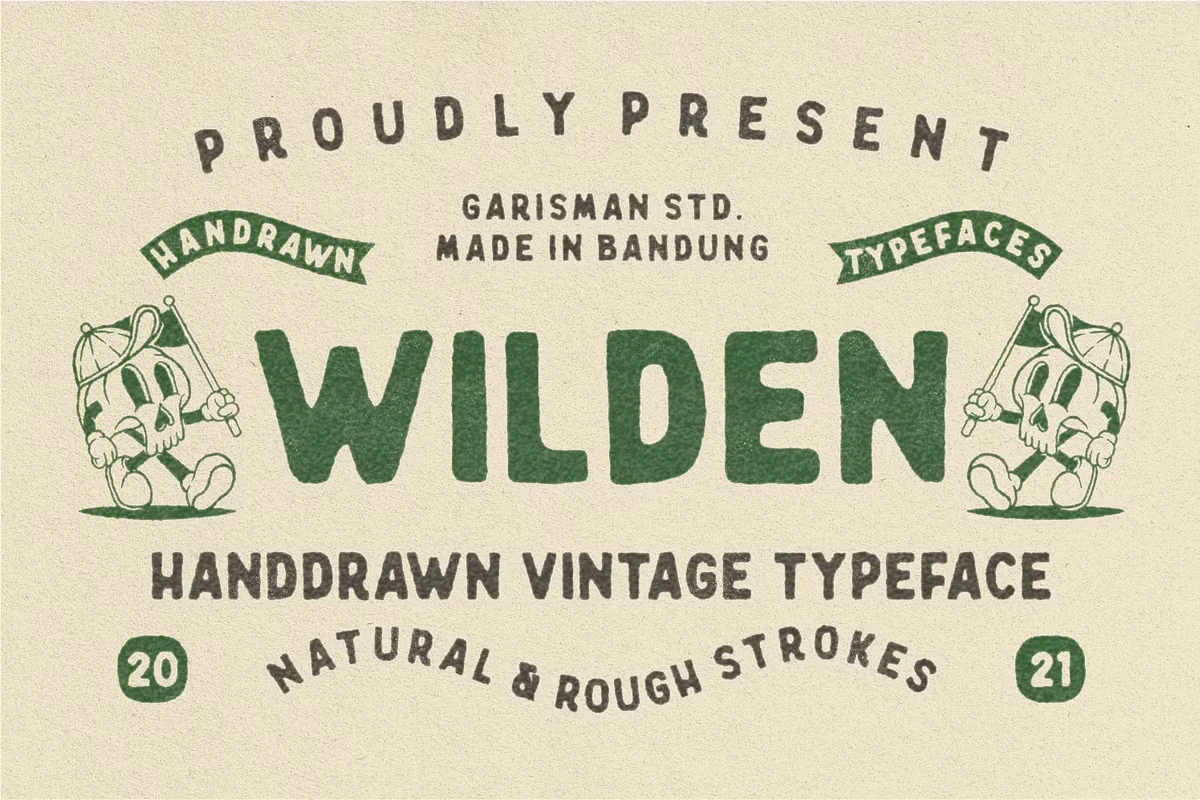
Wilden Font vintage font is a captivating typeface inspired by vintage and poster-style designs, evoking a sense of nostalgia, old-school charm, and timeless authenticity. Meticulously crafted to infuse your projects with a retro spark, this font combines vintage appeal with modern functionality. Its PUA encoding ensures seamless usability for designers of all skill levels, making it an accessible and versatile choice for any creative endeavor.
Whether you’re aiming to create a vintage vibe or a timeless masterpiece, Wilden Font is your go-to tool. Perfectly suited for graphic design projects like logos, infographics, flyers, and web banners, it also elevates branding materials such as brochures, t-shirts, business cards, posters, and photography. With Wilden, you can effortlessly blend modern creativity with classic refinement, adding a touch of authenticity and elegance to your work. Let Wilden Font transport your designs to a bygone era while keeping them fresh and relevant.